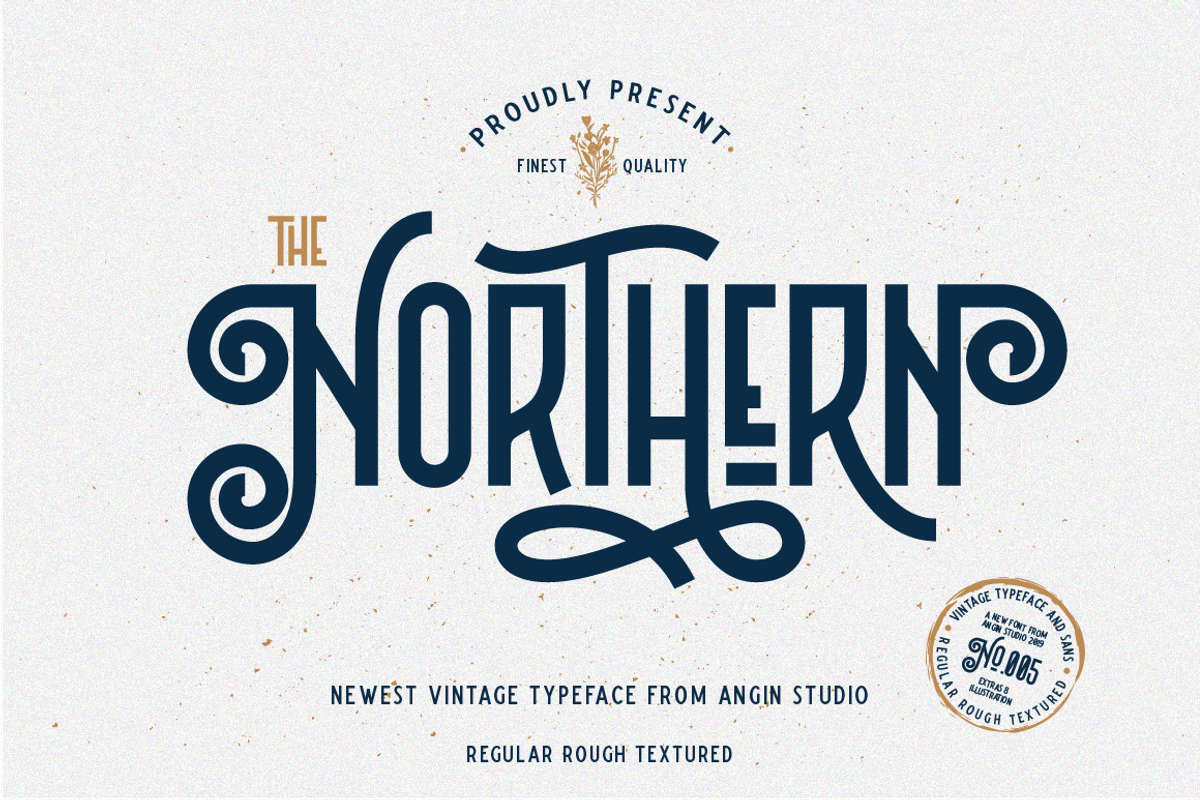
Northern – 5 Fonts with Extras Free Download is a bold and versatile font collection designed to bring a rugged, handcrafted vibe to your creative projects. With five unique font styles—including vintage serif, bold display, and textured variants—this bundle is perfect for outdoor branding, apparel, logos, badges, signage, and rustic packaging.
The included extras (such as ornaments, catchwords, or illustrations) make it easy to create cohesive, adventure-inspired designs with a strong visual identity. Northern – 5 Fonts with Extras Free Download is especially great for brands that want to channel the wild, the raw, and the adventurous.